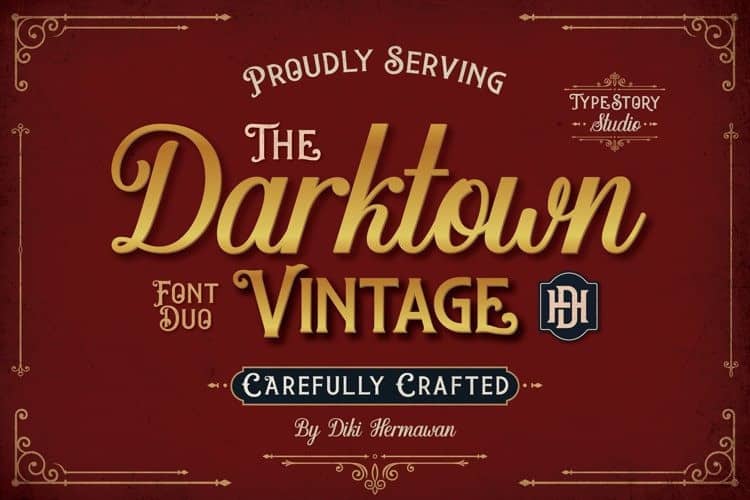
Darktown Font Duo
Darktown Font Duo is a combination of a beauty handwritten script font & modern sans serif font. It’s designed and shared by Typestory.
Darktown is decorative sans and script made with love, it is suitable for poster designs, logos, signs and typography. There are two types of font scripts and sans that will support your project. accompanied by a bonus text style that can be edited in Adobe Illustrator.